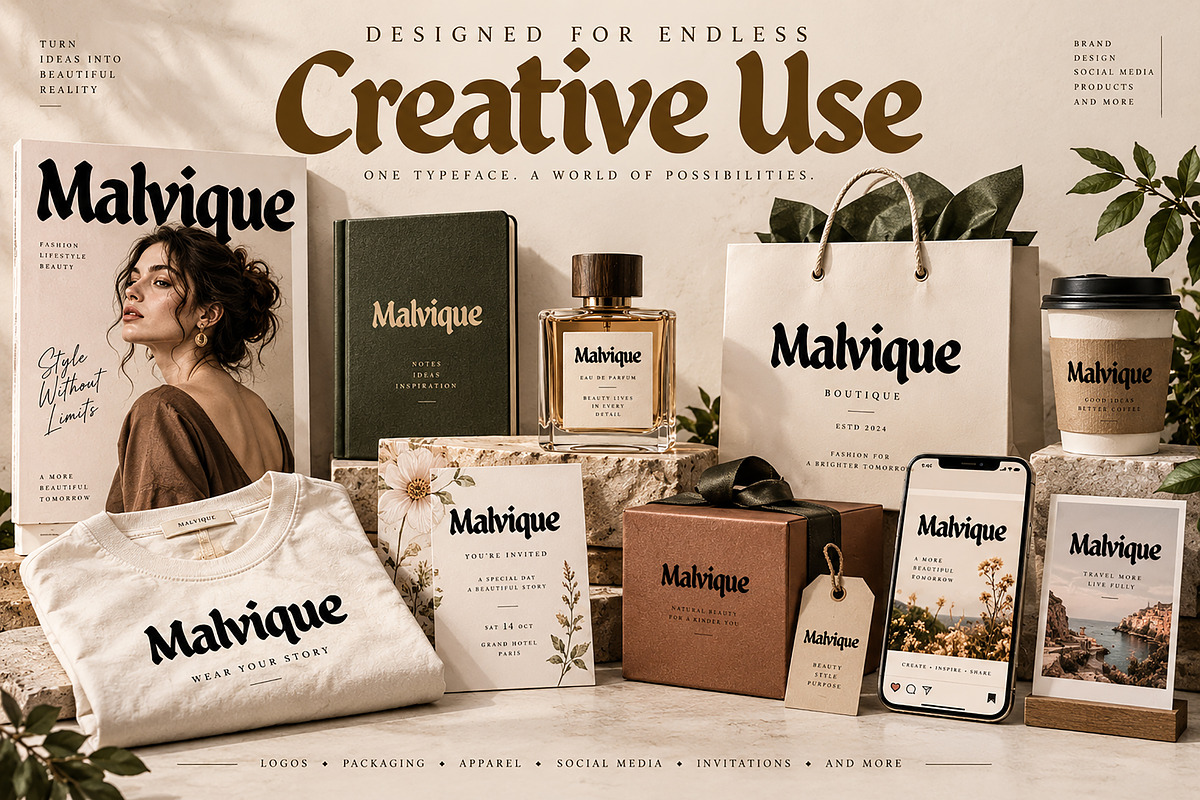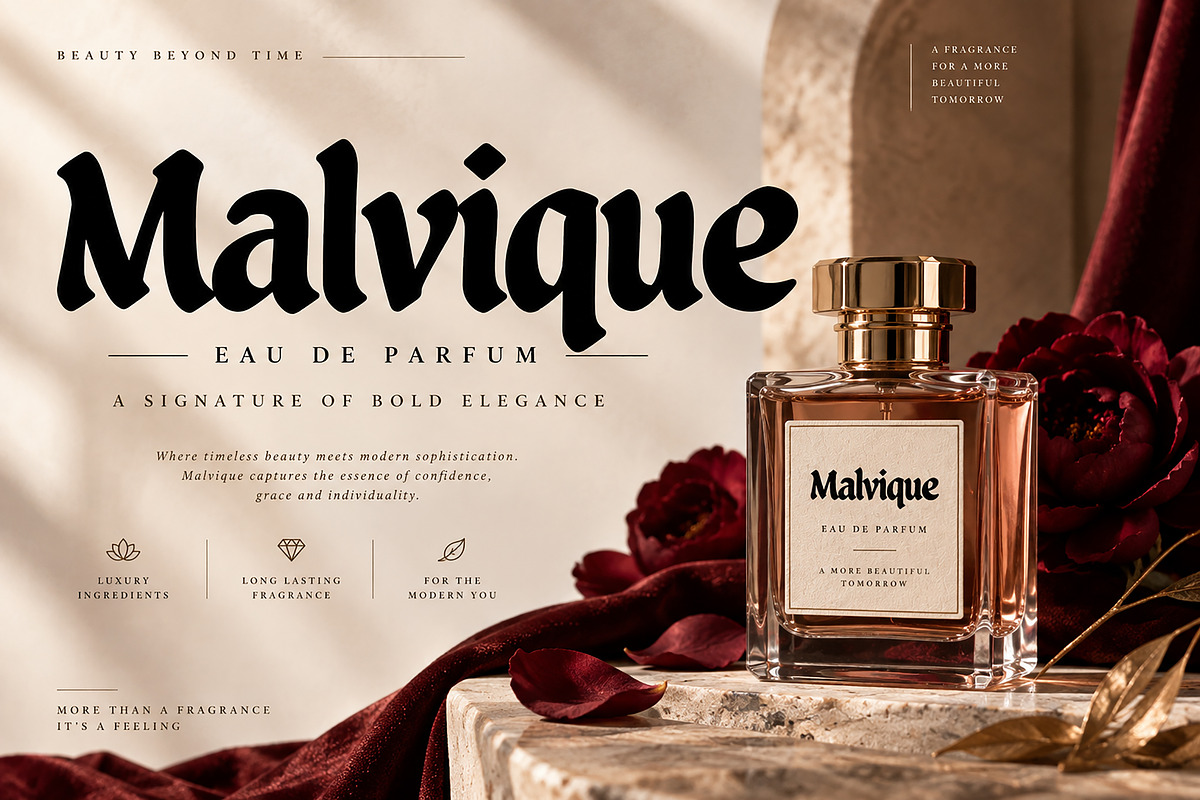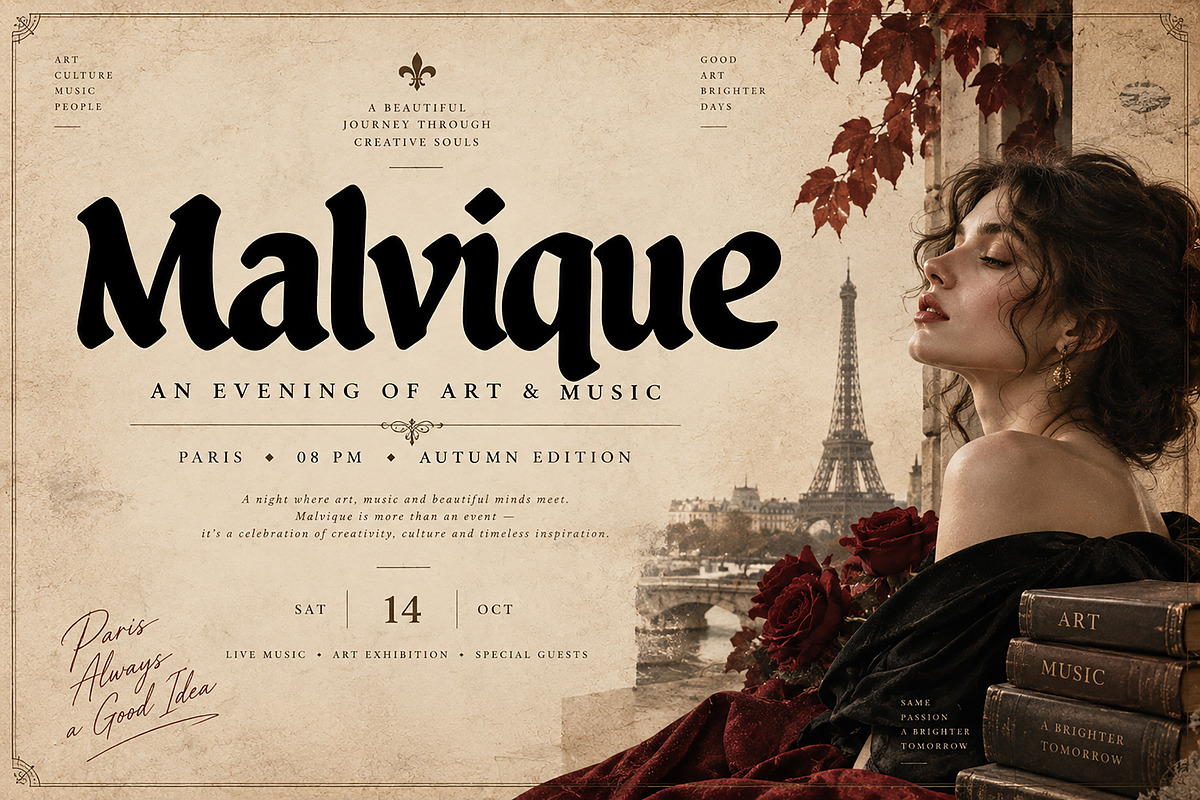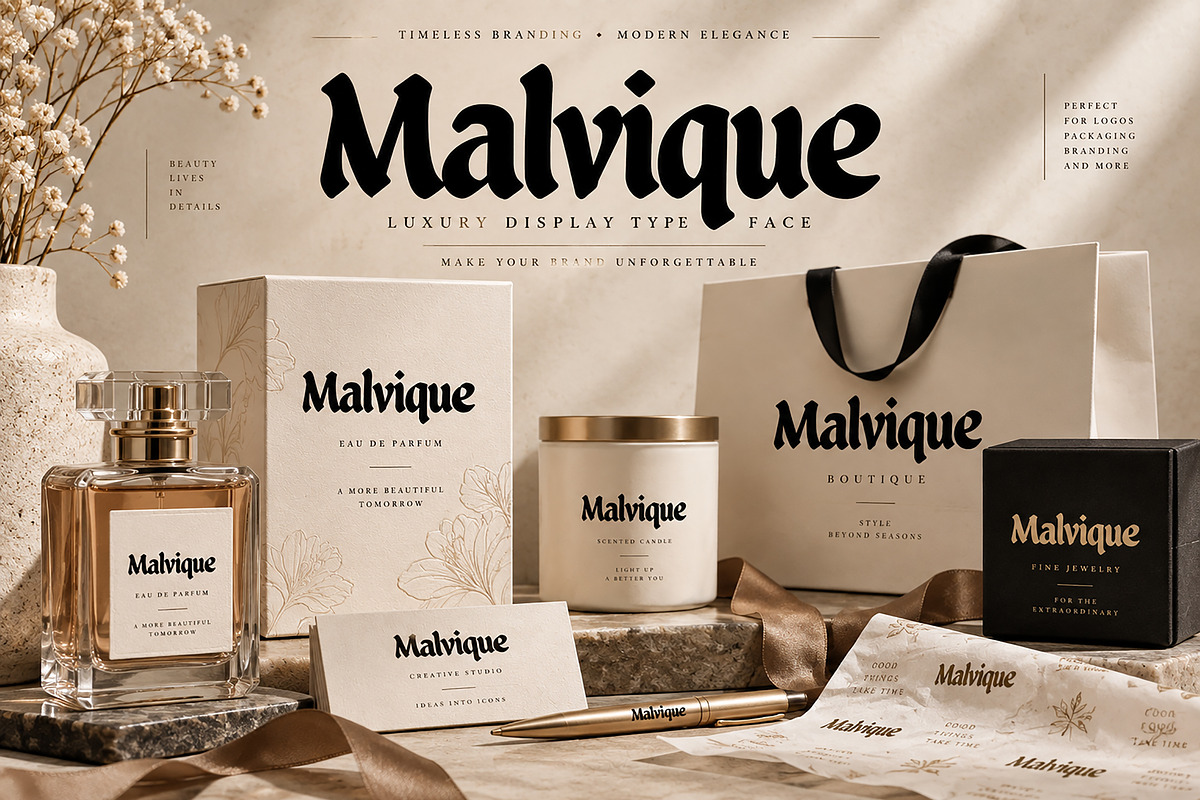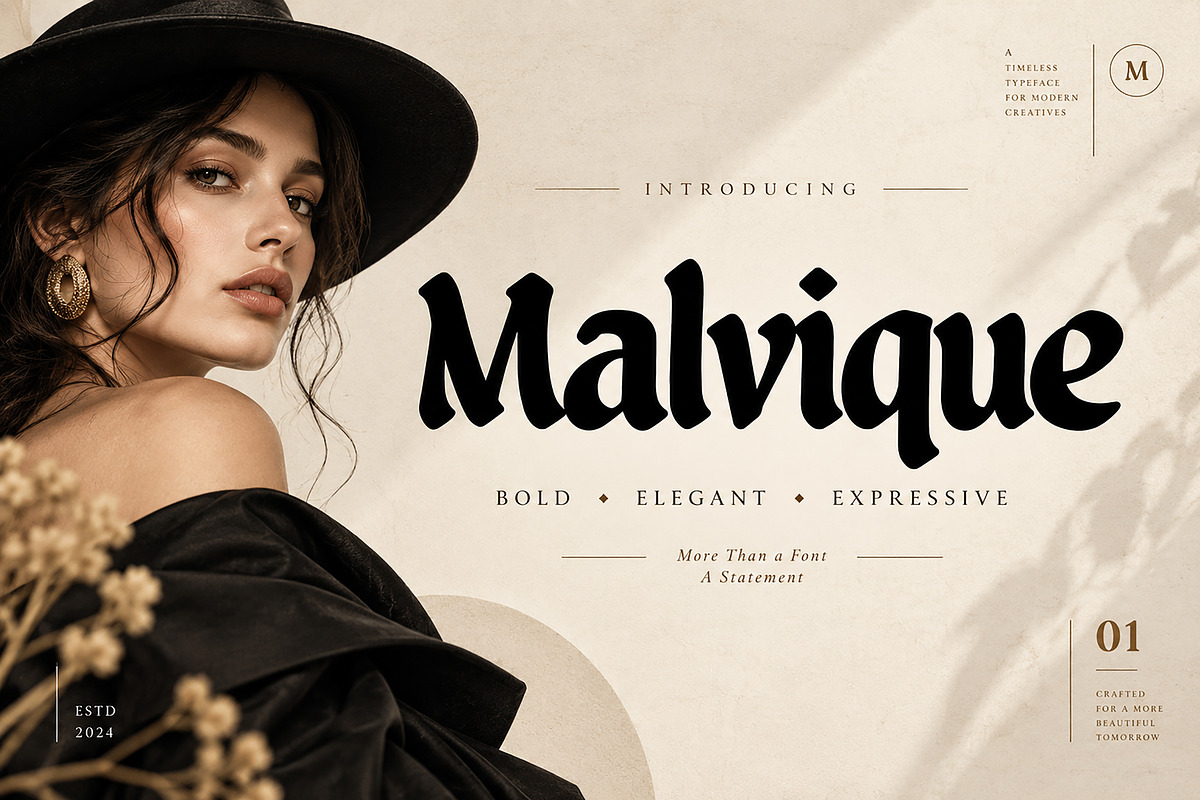
Bold Display / Expressive / Elegant
Bold Display / Expressive / Elegant / Artistic
Malvique is a bold and expressive display typeface designed to bring a distinctive, elegant, and artistic personality to your creative projects. With its dramatic curves, organic letterforms, and strong visual presence, Malvique is perfect for designs that need to feel stylish, confident, modern, and memorable.
Its eye-catching character makes it an excellent choice for fashion branding, luxury logos, beauty products, perfume packaging, boutique identities, editorial designs, posters, invitations, apparel, product packaging, social media graphics, and more.
Malvique works especially well when you want your typography to become the visual statement of the design. Use it for sophisticated brand names, campaign headlines, creative titles, packaging, promotional artwork, and other display-focused projects.
Luxury & Fashion Branding
Beauty & Cosmetics
Perfume & Fragrance Packaging
Boutique Branding
Editorial & Magazine Design
Posters & Advertising
Invitations & Greeting Cards
T-Shirt & Apparel Design
Creative Headlines & Titles
Event Branding
Art & Lifestyle Projects
Bold & expressive display style
Distinctive organic letterforms
Elegant and dramatic appearance
Perfect for eye-catching typography
Versatile for branding and display projects
Ideal for both print and digital designs
Font Name: Malvique
Style: Bold Display / Expressive / Elegant / Artistic
Turn ordinary designs into memorable visual statements with Malvique.